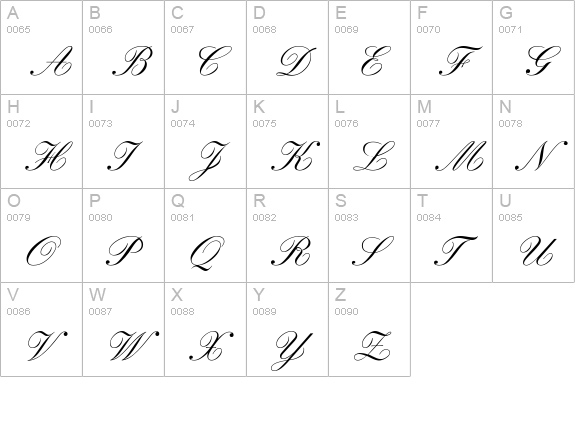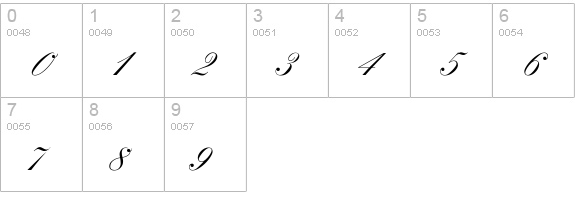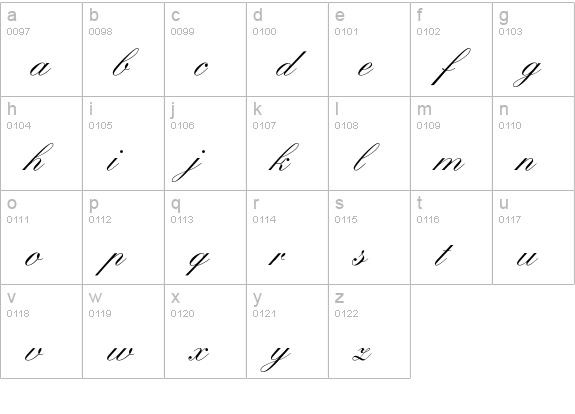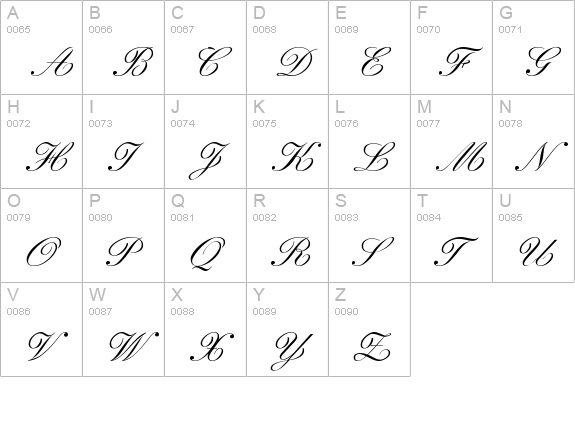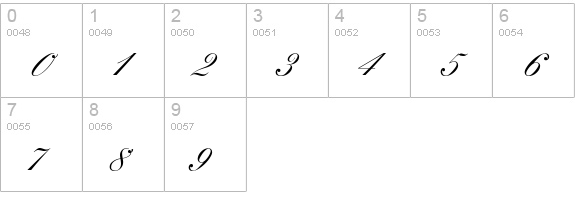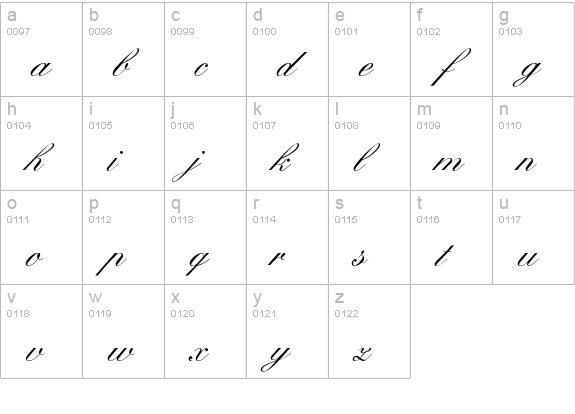
WynnerockScript-Medium Font Details
WynnerockScript-Medium is a balanced, medium-weight variant in the WynnerockScript typeface family \xE2\x80\x94 well suited to sub-headlines, navigation, and balanced editorial work.